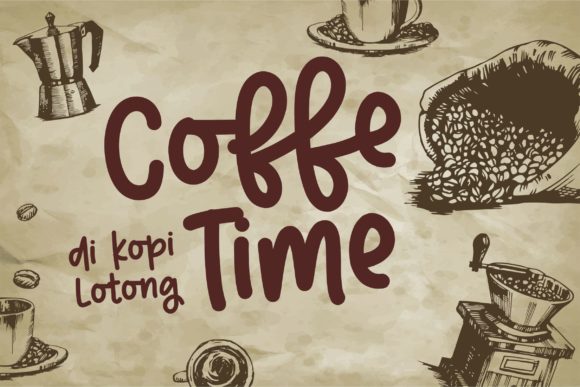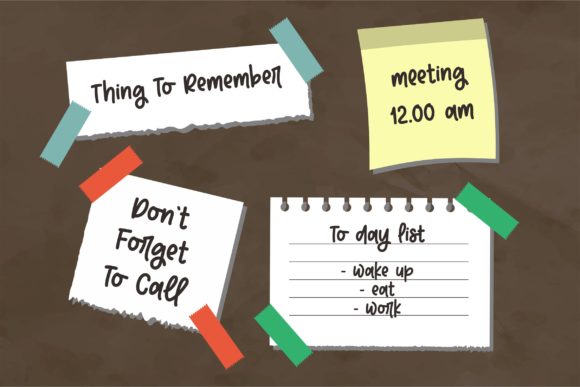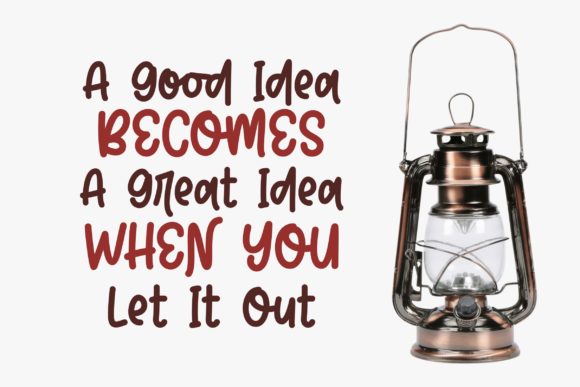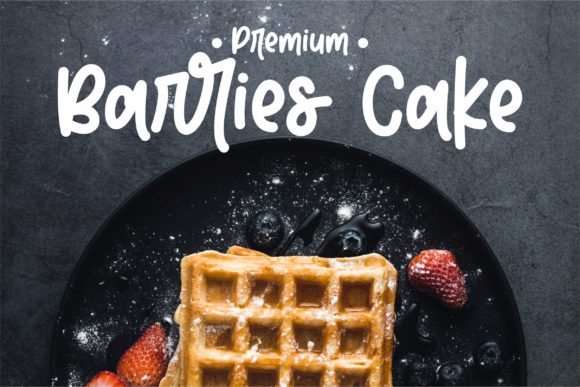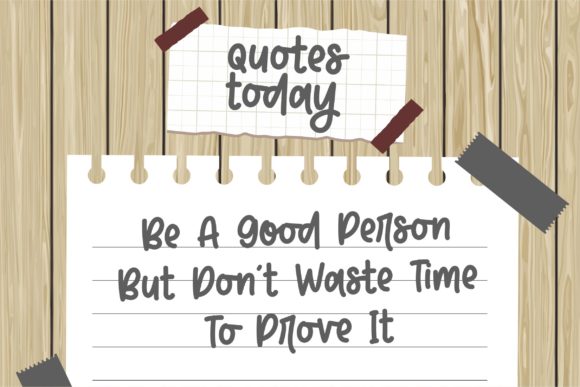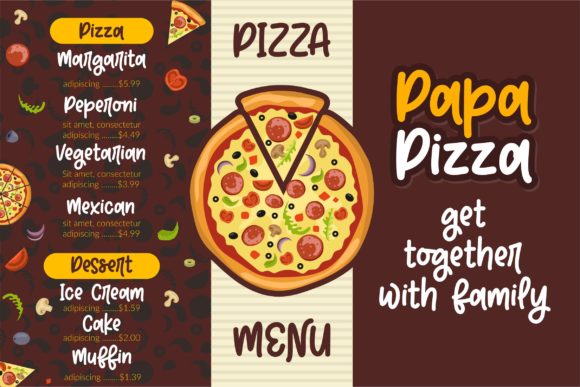
Introducing Barryone Font: The Handwritten Gem for DIY Projects
Are you a designer, crafter, or DIY enthusiast looking for a unique and authentic handwritten font to elevate your projects? Look no further than Barryone Font! This stunning pairing of a brush pen and pencil has resulted in a font that exudes an endearing and genuine charm, perfect for bringing your creative endeavors to life.
The Story Behind Barryone Font
Barryone Font is the brainchild of a creative designer who sought to combine the fluidity of a brush pen with the precision of a pencil. The result is a truly one-of-a-kind handwritten font that boasts a distinctive character. The font’s unique blend of digital and analog elements gives it an organic, hand-crafted feel that’s sure to capture the hearts of designers and crafters alike.
What Makes Barryone Font So Special?
So, what sets Barryone Font apart from other handwritten fonts on the market? Here are just a few reasons why this font is a cut above the rest:
- Authentic Look and Feel: Barryone Font’s dual-source creation process gives it an incredibly authentic look and feel that’s reminiscent of traditional handwriting.
- Unique Character: The font’s distinctive blend of brush pen and pencil strokes creates a truly unique character that’s sure to make your projects stand out.
- Versatility: Whether you’re working on a DIY project, crafting a brand identity, or simply looking for a beautiful font for personal use, Barryone Font is the perfect choice.
Using Barryone Font in Your DIY Projects
So, how can you use Barryone Font to bring your DIY projects to life? Here are just a few ideas to get you started:
- Handmade Crafts: Use Barryone Font to add a personal touch to your handmade crafts, such as knitted items, jewelry, or woodwork.
- Paper Crafting: Add a touch of elegance to your paper crafting projects, such as cards, invitations, or scrapbook pages.
- Sign Making: Use Barryone Font to create eye-catching signs for your business, event, or personal project.
- Branding and Packaging: Incorporate Barryone Font into your brand identity and packaging to add a touch of warmth and personality.
Tips and Tricks for Working with Barryone Font
To get the most out of Barryone Font, here are a few tips and tricks to keep in mind:
- Experiment with Sizes and Colors: Don’t be afraid to experiment with different sizes and colors to find the perfect combination for your project.
- Pair with Other Fonts: Try pairing Barryone Font with other fonts to create a unique and visually appealing combination.
- Use in Combination with Images: Use Barryone Font in combination with images or illustrations to add an extra layer of depth and interest to your project.
| Font Name | Barryone Font |